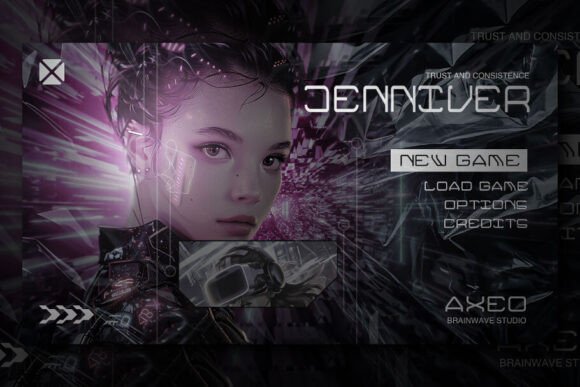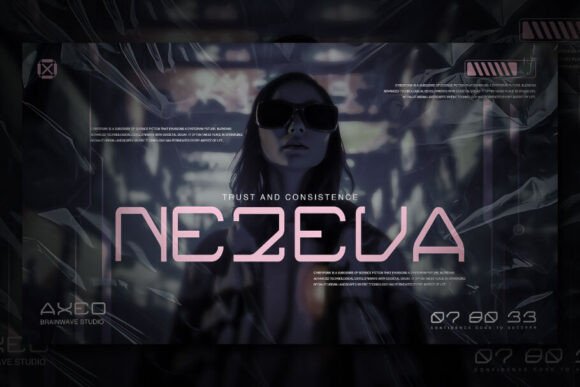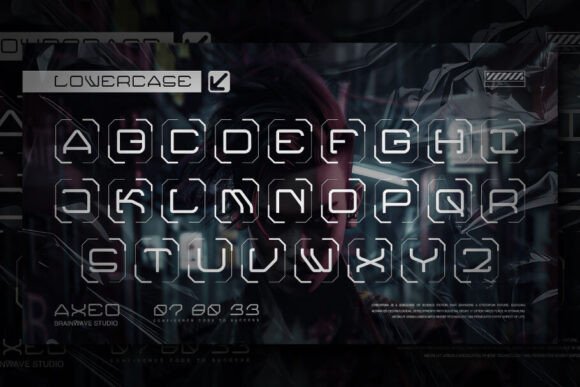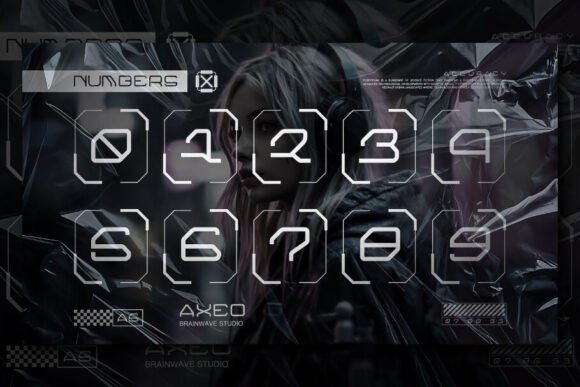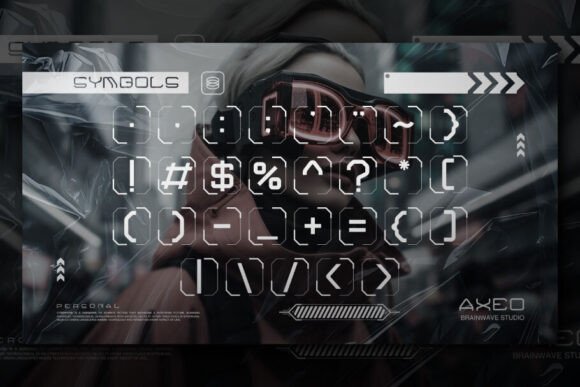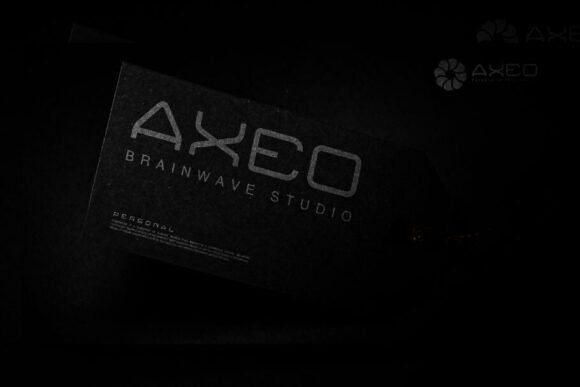
Introducing Axeo Font: The Futuristic and Slim Design for the Digital Age
In the rapidly evolving world of digital design, typography plays a crucial role in shaping the visual identity of brands, products, and experiences. Among the numerous font designs that have emerged in recent years, Axeo Font stands out as a bold and futuristic typeface that embodies the spirit of innovation and progress. Characterized by its clean, minimalist lines and sense of openness, Axeo Font is not just a style – it’s a statement about the direction of design in the digital age.
The Characteristics of Axeo Font
Axeo Font is distinguished by its sleek and slim appearance, which gives it a modern and cutting-edge feel. The font features:
- Clean Lines: Axeo Font boasts clean and precise lines that are free from unnecessary embellishments, giving it a crisp and contemporary look.
- Minimalist Aesthetic: The font’s minimalist design ensures that it remains uncluttered and focused, making it perfect for digital applications where clarity is paramount.
- Open and Airy Feel: Axeo Font’s open and airy design creates a sense of spaciousness, making it ideal for use in digital interfaces, such as mobile apps, websites, and software.
The Significance of Axeo Font in Digital Design
The digital landscape is constantly evolving, and typography plays a vital role in shaping user experiences. Axeo Font’s futuristic and slim design makes it an excellent choice for designers and crafters looking to create modern and engaging digital products. Here are some reasons why Axeo Font has become a popular choice in digital design:
- Readability: Axeo Font’s clean and minimalist design ensures excellent readability, even at small font sizes, making it perfect for use in digital interfaces.
- Versatility: The font’s slim and futuristic design makes it suitable for a wide range of applications, from digital products to branding and advertising.
- Technological Aesthetic: Axeo Font’s design is reminiscent of technology and innovation, making it an excellent choice for tech-related brands, startups, and products.
Using Axeo Font in Design Projects
Axeo Font can be used in a variety of design projects, including:
- Digital Products: Use Axeo Font to create modern and engaging digital products, such as mobile apps, websites, and software.
- Branding and Advertising: Axeo Font’s futuristic design makes it an excellent choice for branding and advertising campaigns, particularly for tech-related brands.
- Print Materials: Although Axeo Font is designed with digital applications in mind, it can also be used in print materials, such as brochures, posters, and business cards.
To get the most out of Axeo Font, here are some tips for designers and crafters:
- Experiment with Font Sizes: Axeo Font’s clean and minimalist design ensures excellent readability, even at small font sizes.
- Pair with Other Fonts: Axeo Font can be paired with other fonts to create visually appealing typography. Experiment with different font combinations to find the perfect match.
- Pay Attention to Line Spacing: Axeo Font’s open and airy design requires careful attention to line spacing to ensure optimal readability.
| Author | Brainwave |
Axeo Font is a futuristic and slim font design that embodies the spirit of innovation and progress in the digital age. Its clean, minimalist lines and sense of openness make it an excellent choice for designers and crafters looking to create modern and engaging digital products. With its versatility, readability, and technological aesthetic, Axeo Font is sure to become a popular choice in digital design.